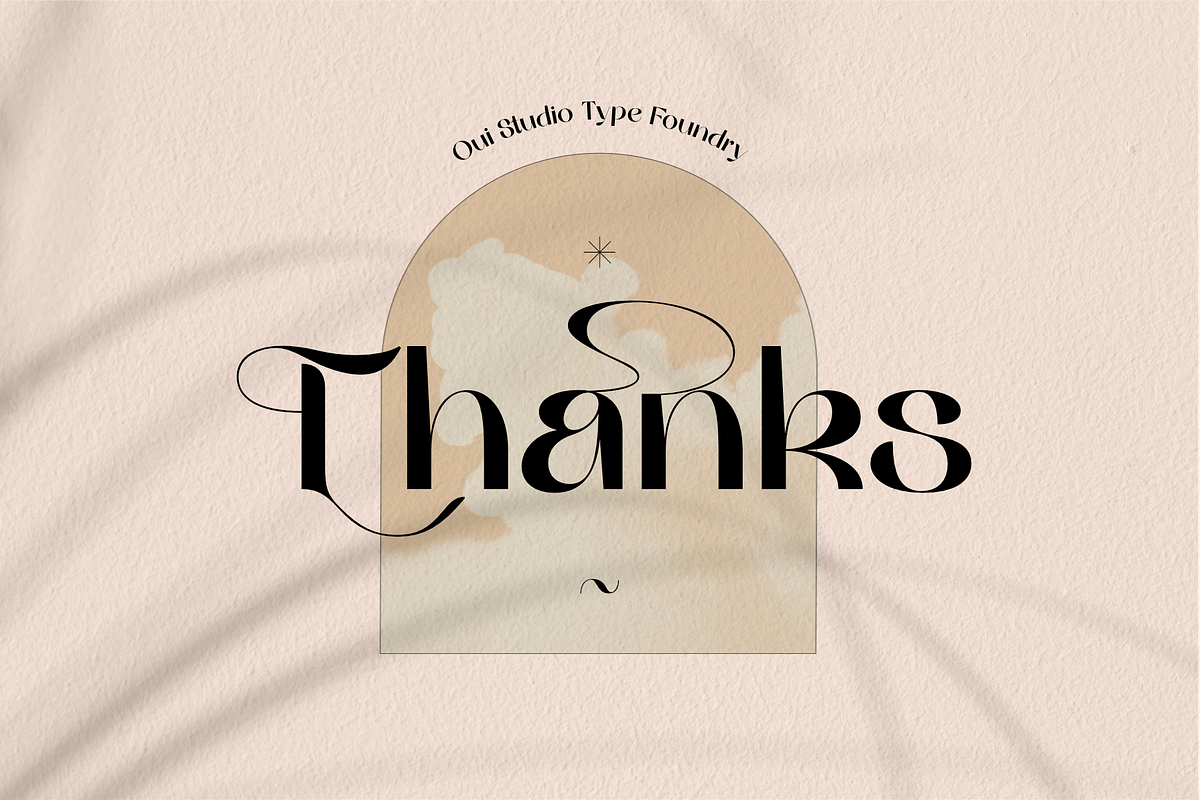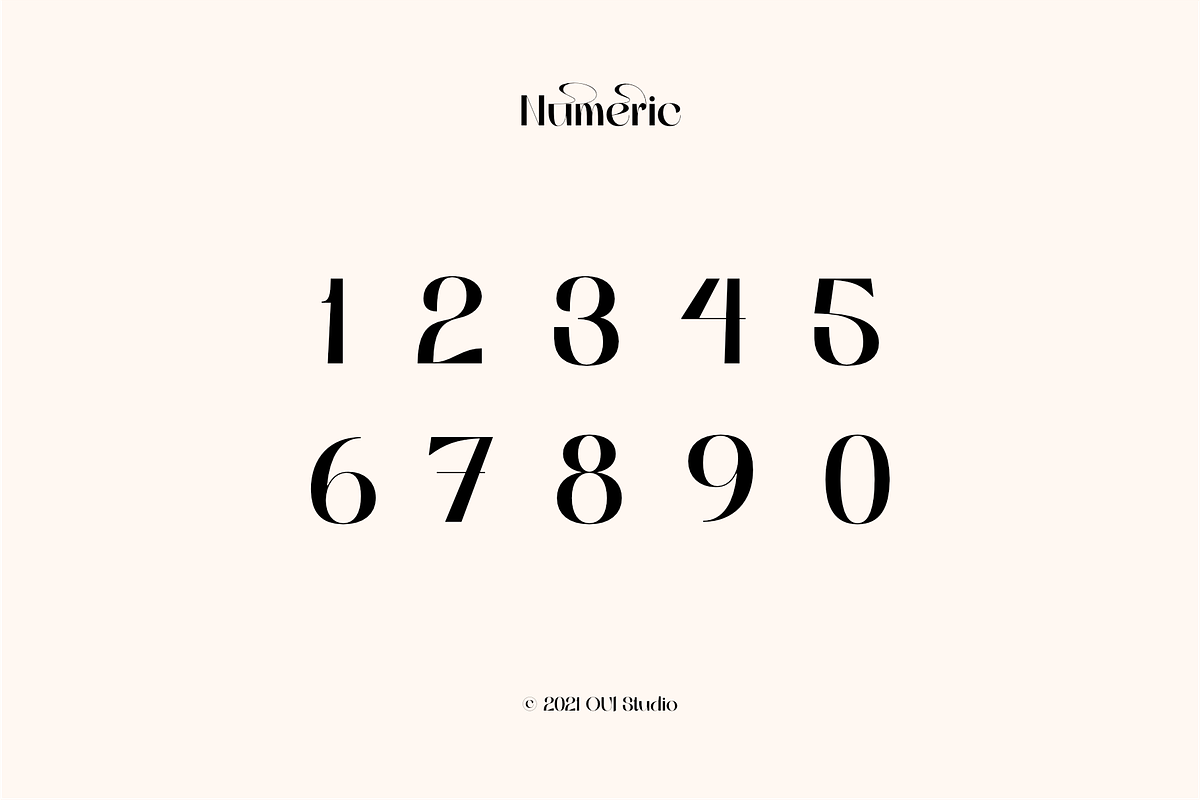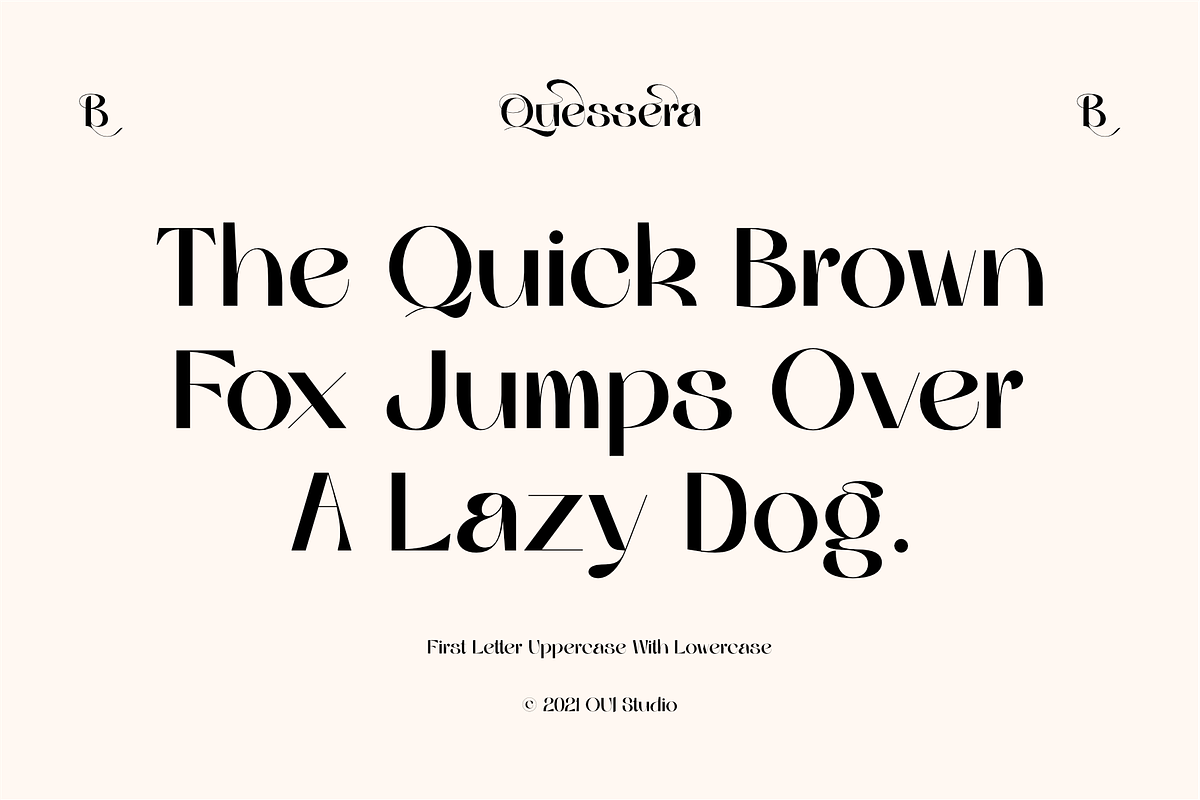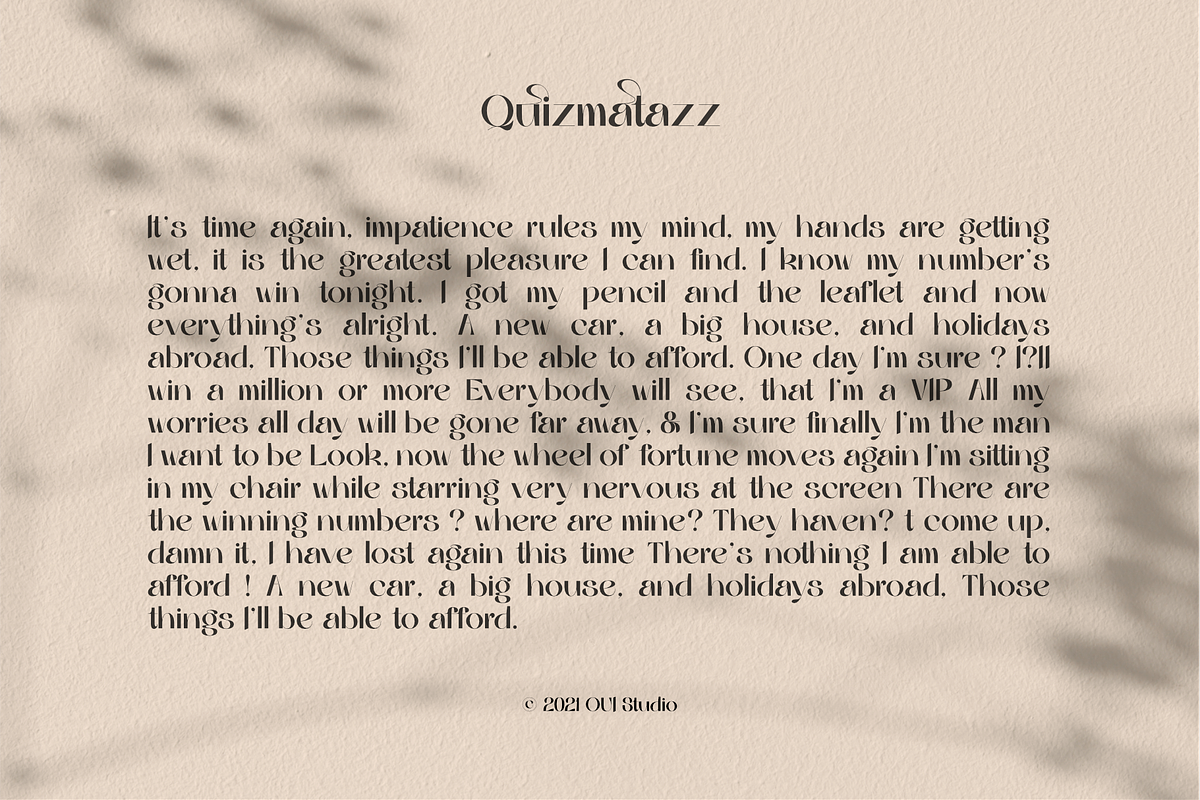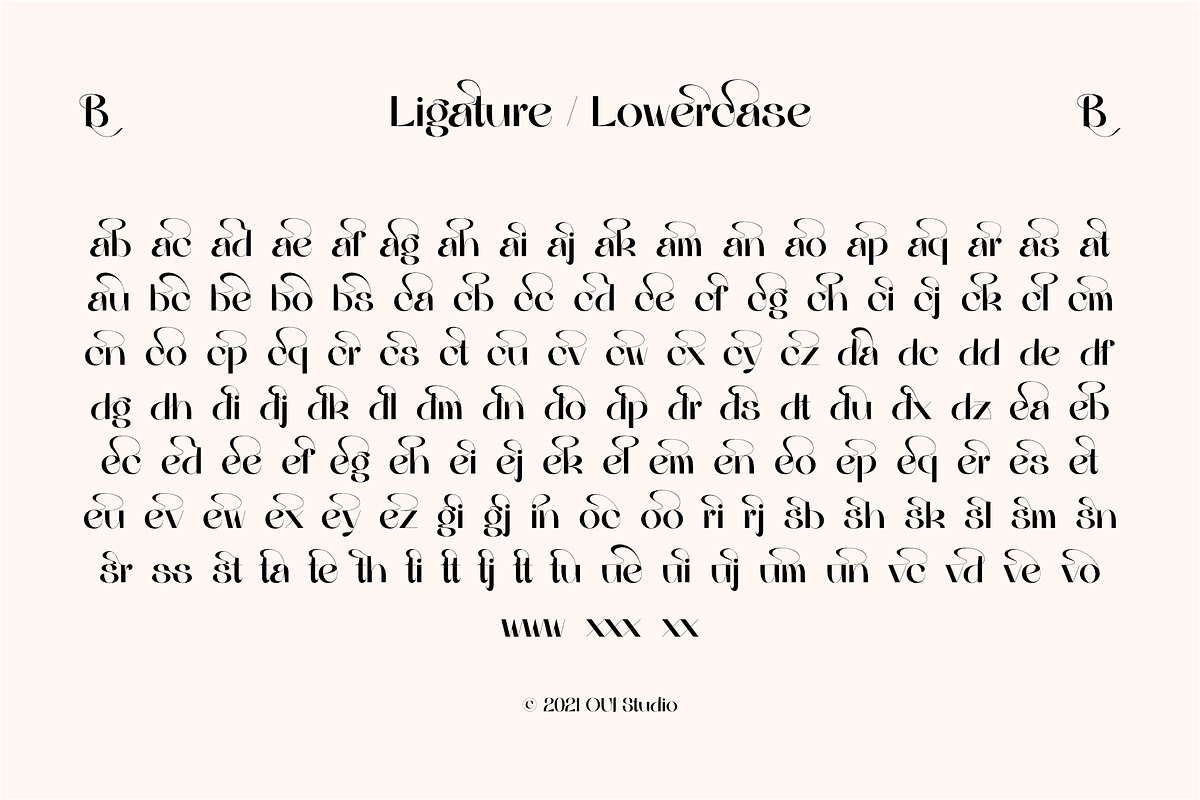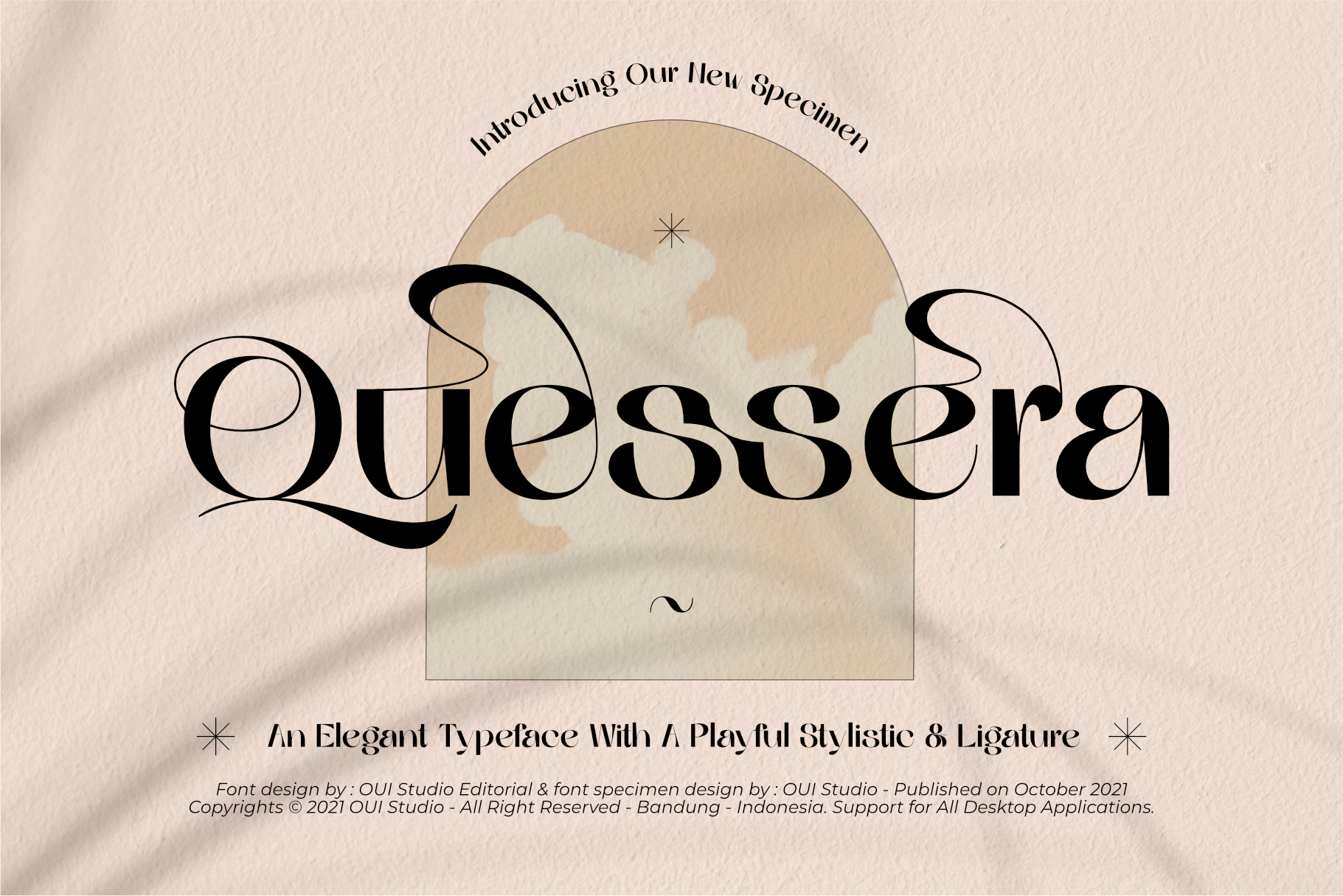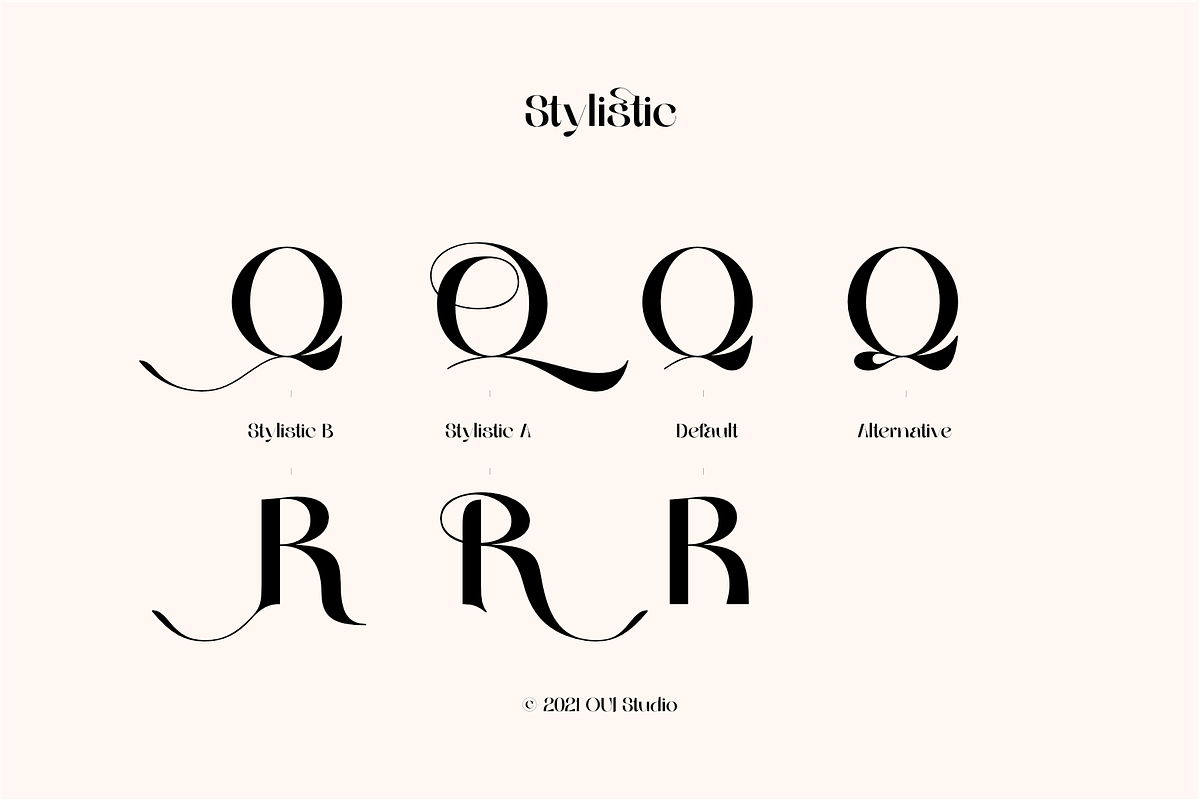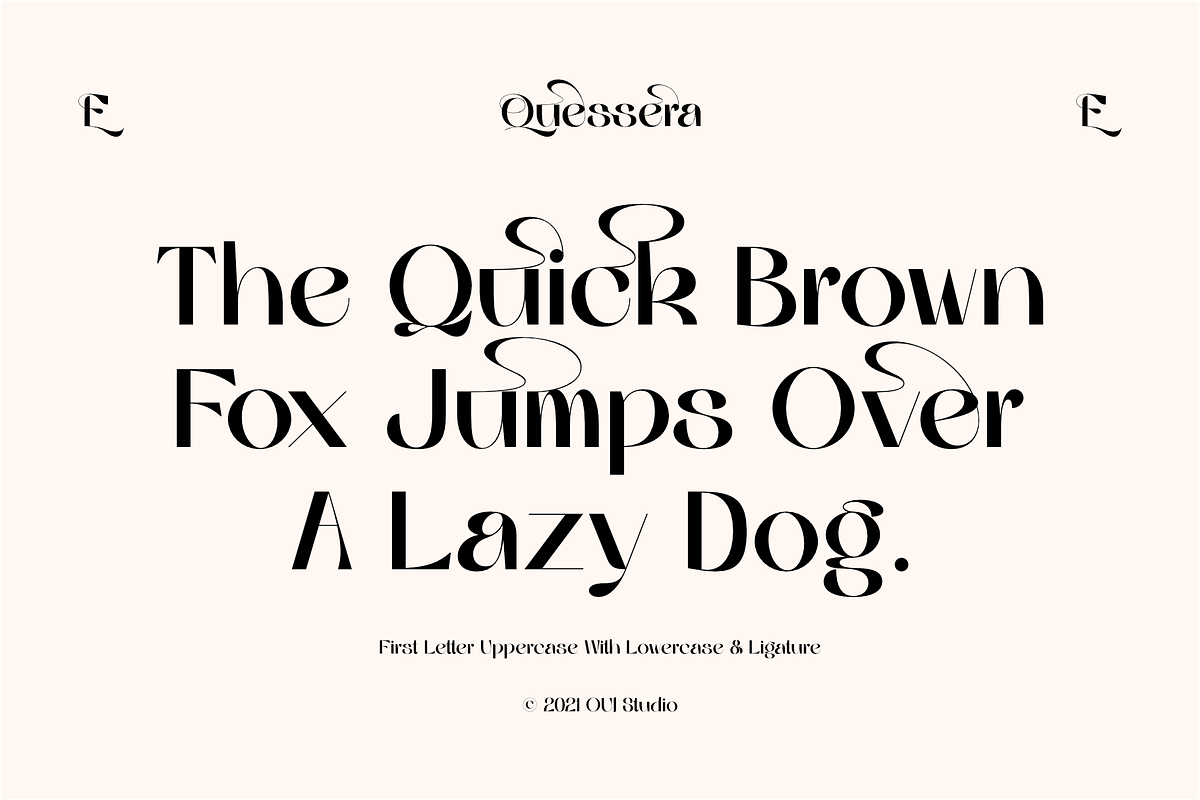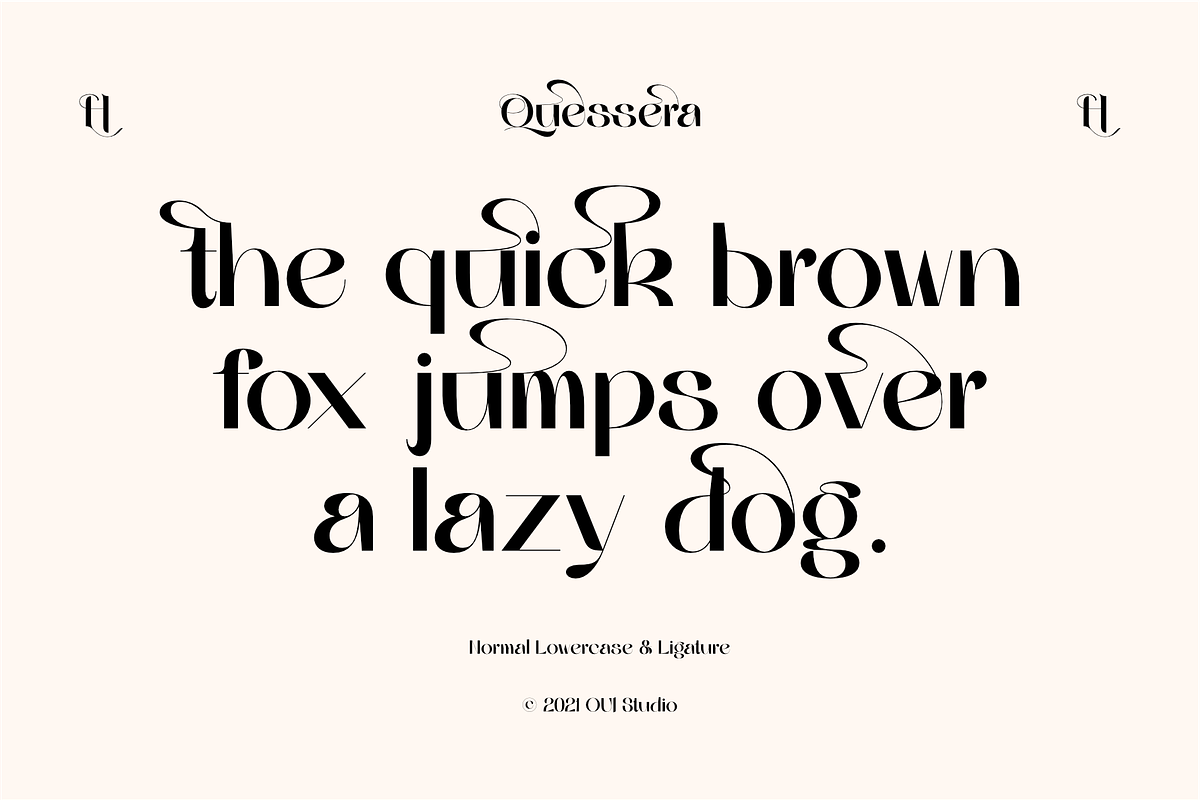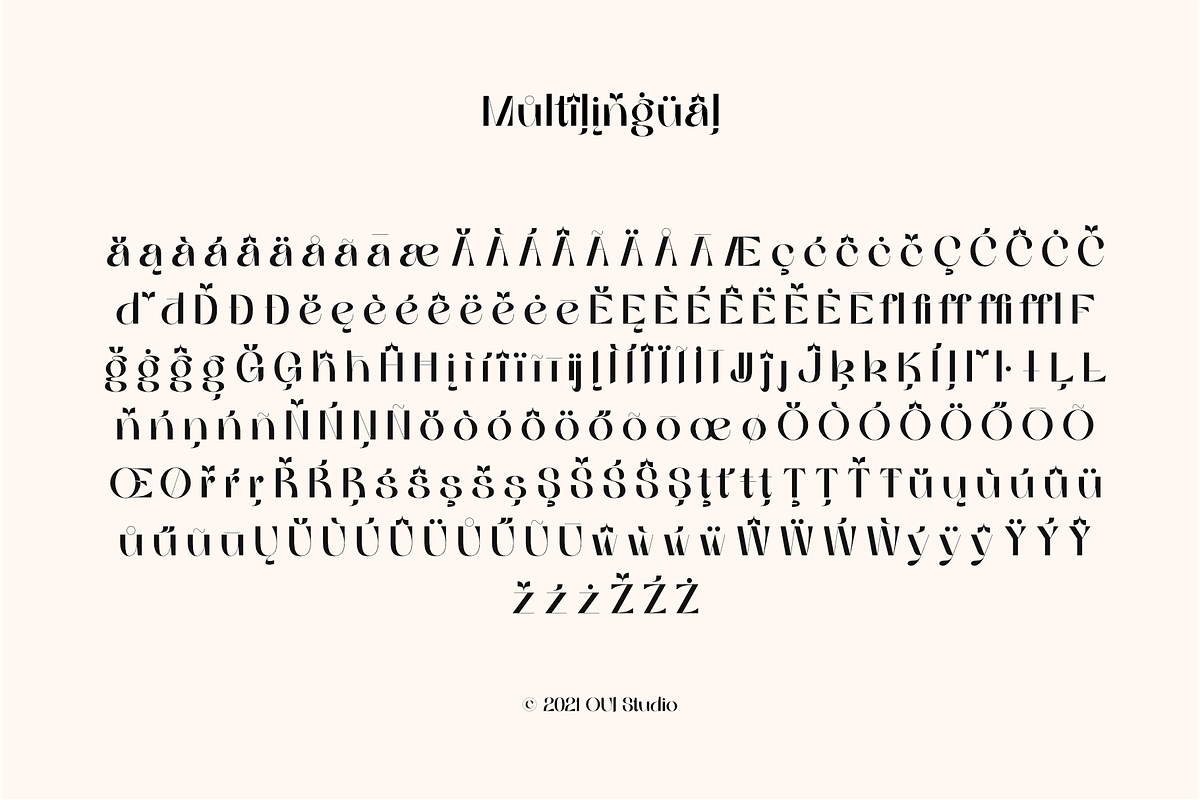
Quessera Font
Hello, friend! 'Quessera' font is coming; an elegant typeface with huge playful stylistic & ligatures.
Quessera has a complete stylistic of uppercase and has many unique ligatures, so you have many choices to determine the most perfect one for your work and make it look stunning.
Quessera is perfect for branding, logo, invitation, wedding vibes, fashion, headlines, and more.